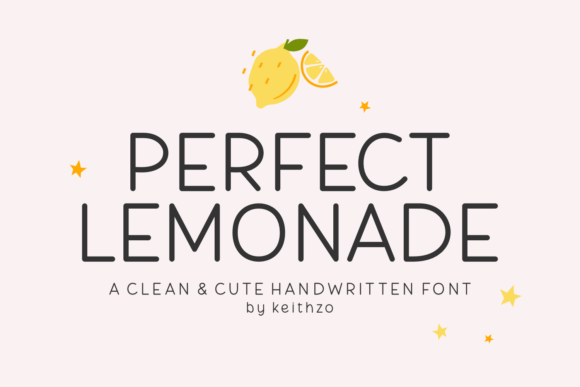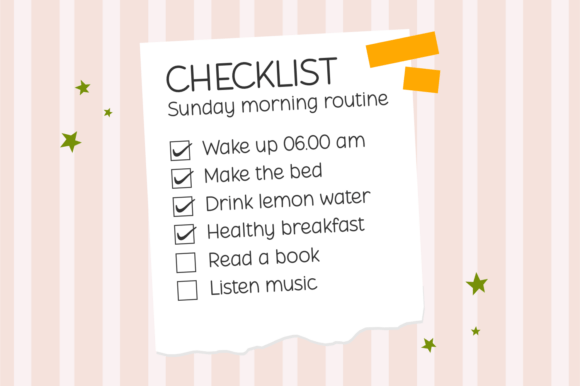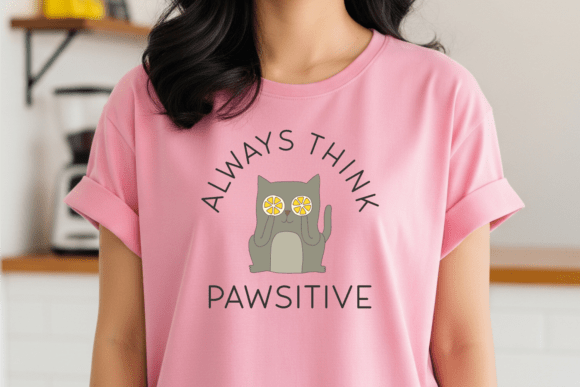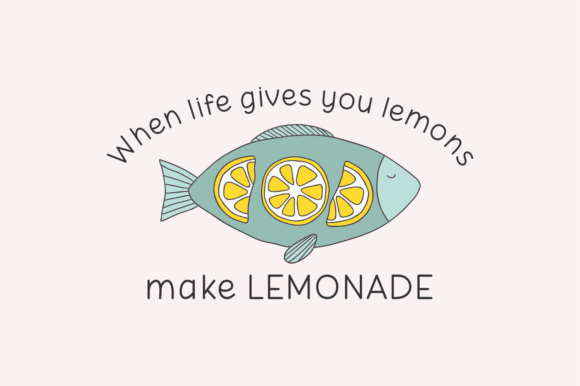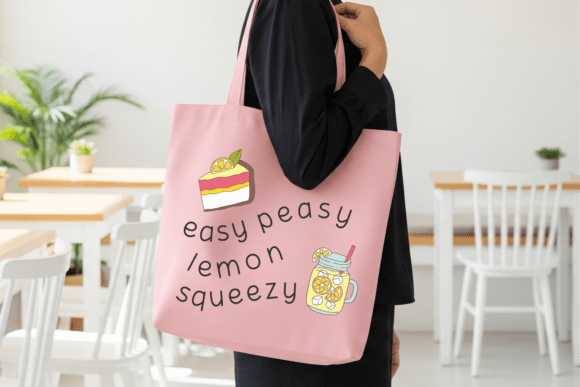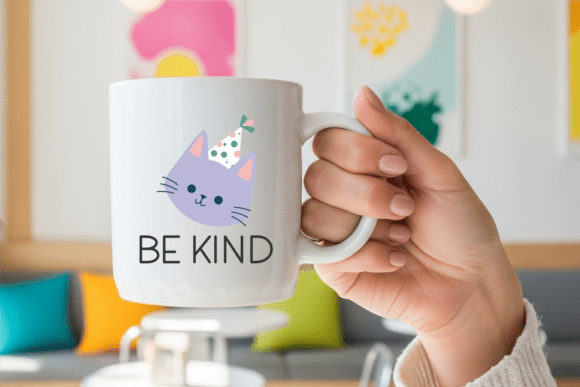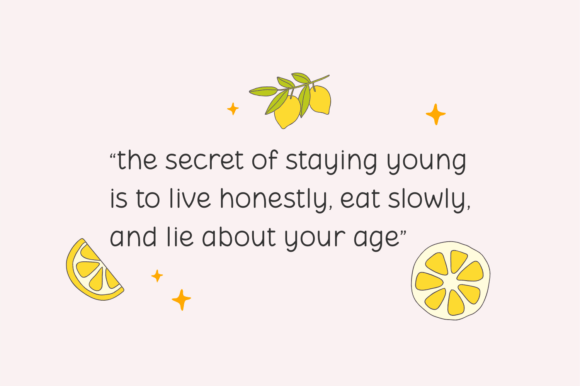
Perfect Lemonade Font
Perfect Lemonade is a clean and cheerful handwritten font that brings playful charm to every project. With its smooth, bubbly strokes and relaxed personality, it captures the feeling of calm journaling sessions, and the joy of expressing yourself creatively. Each letter flows naturally, giving your designs a hand-crafted touch that’s both casual and polished. Whether you’re designing planner pages, crafting sticker packs, making greeting cards, or adding a soft vibe to digital posts, Perfect Lemonade delivers with warmth and clarity.